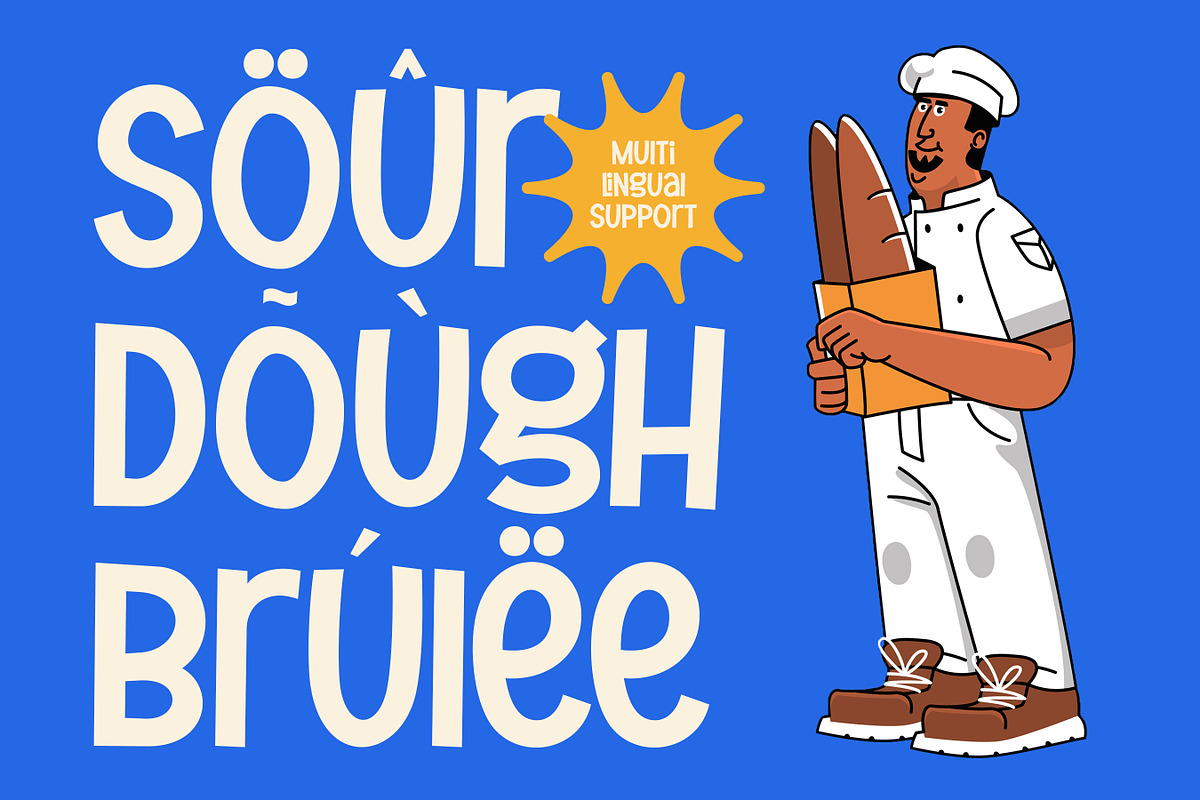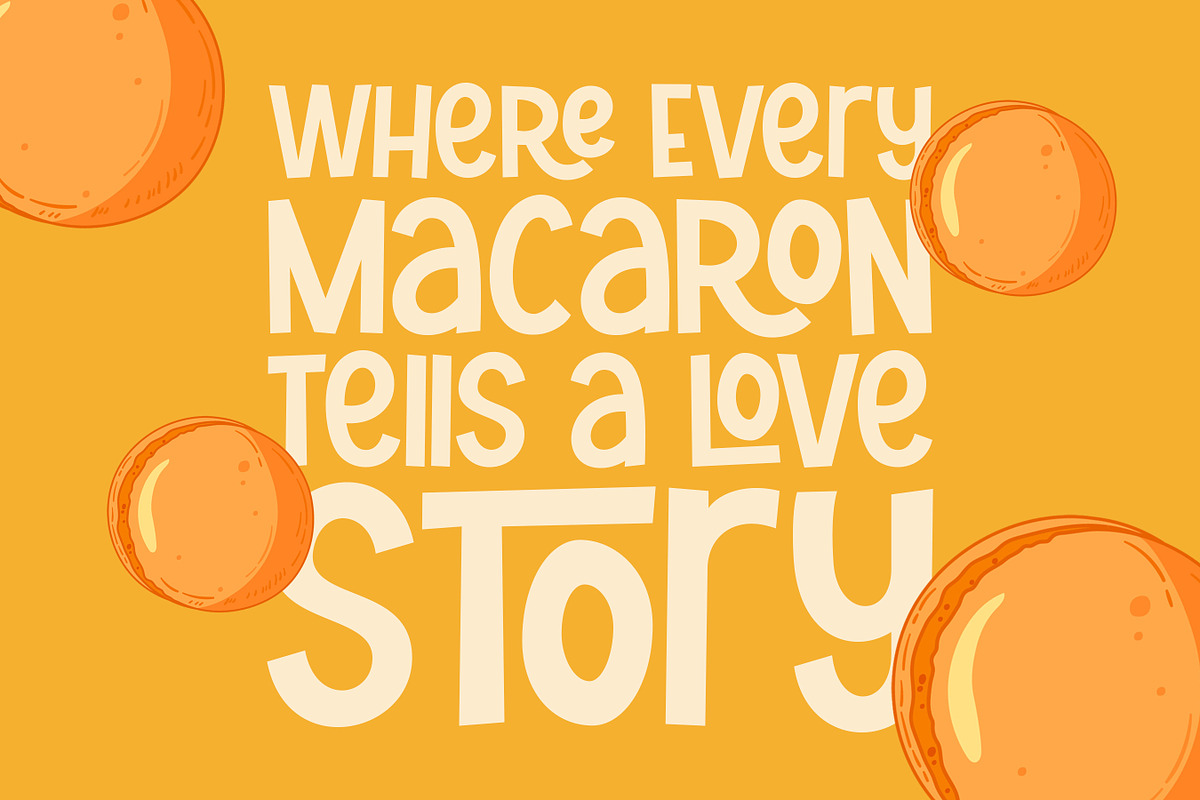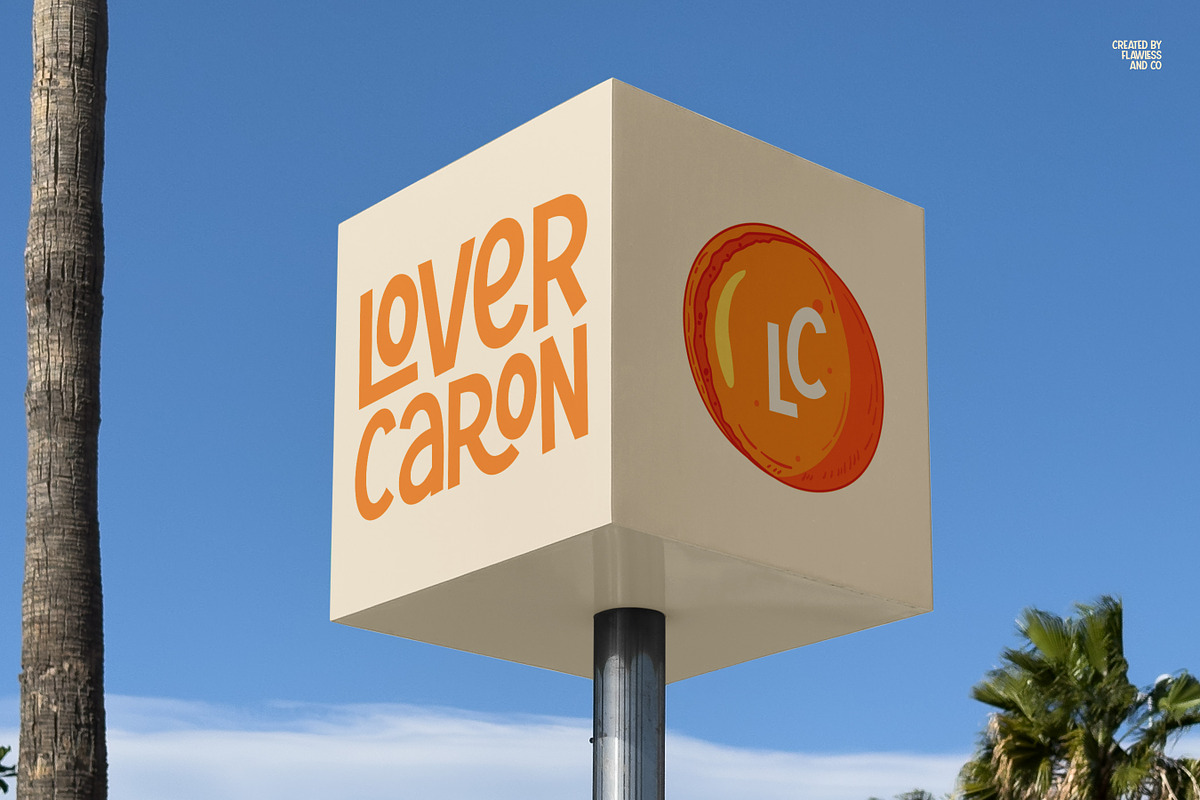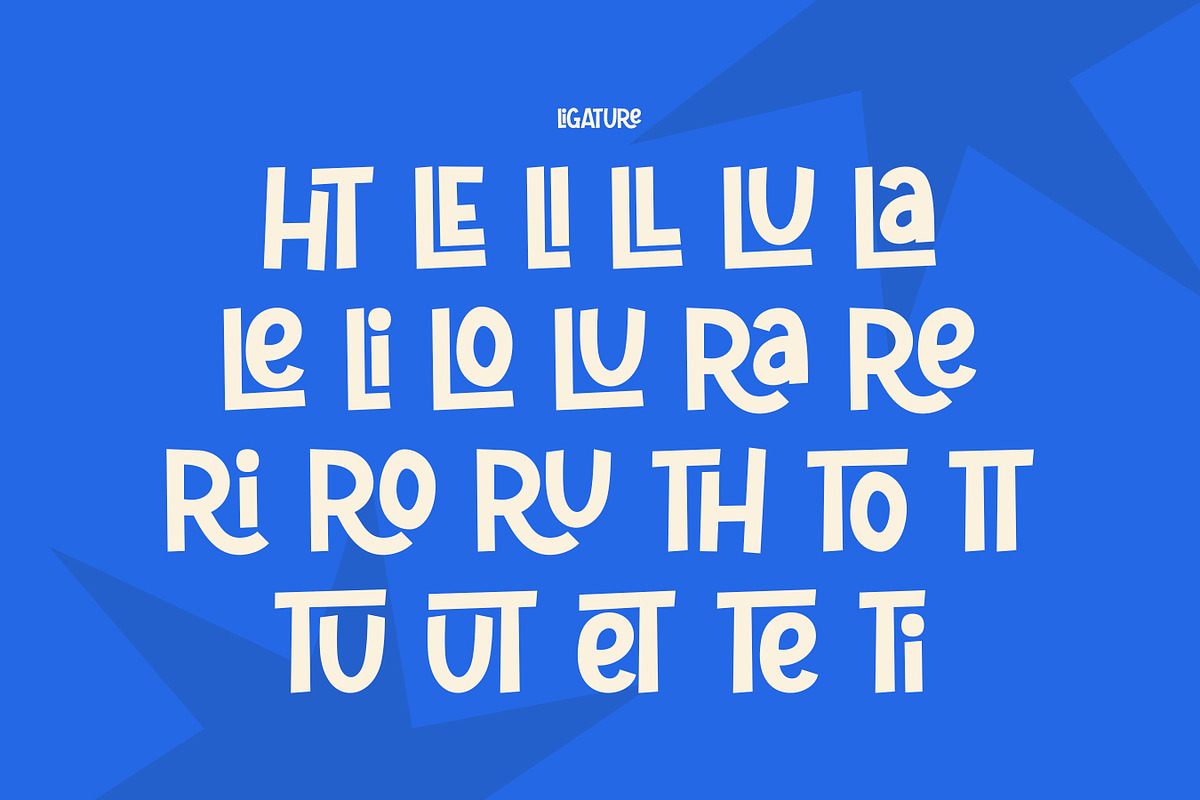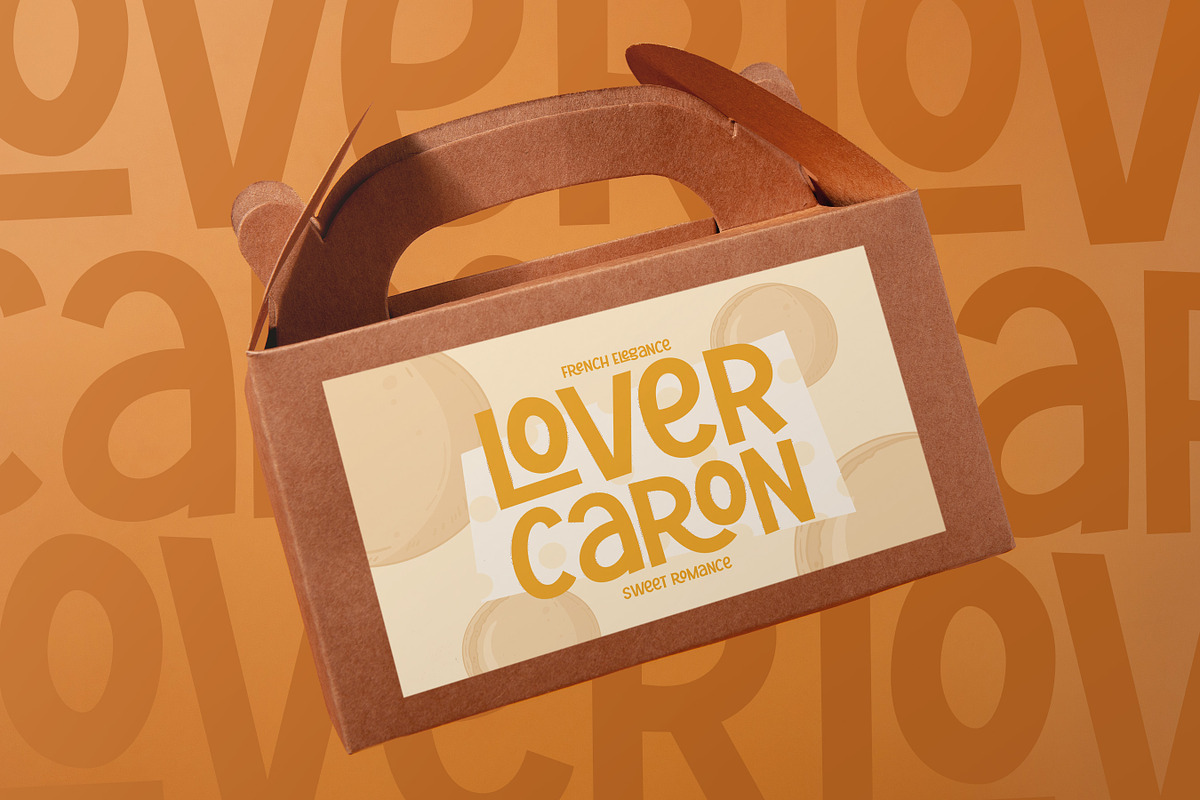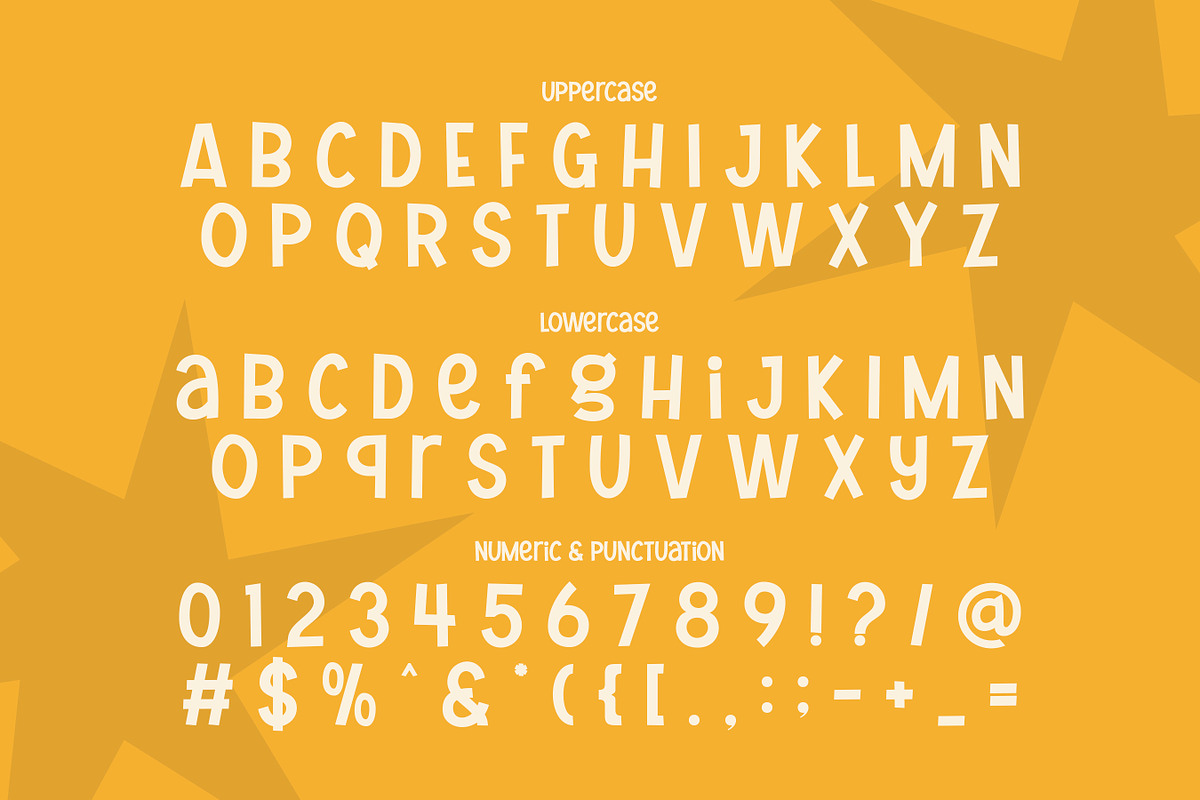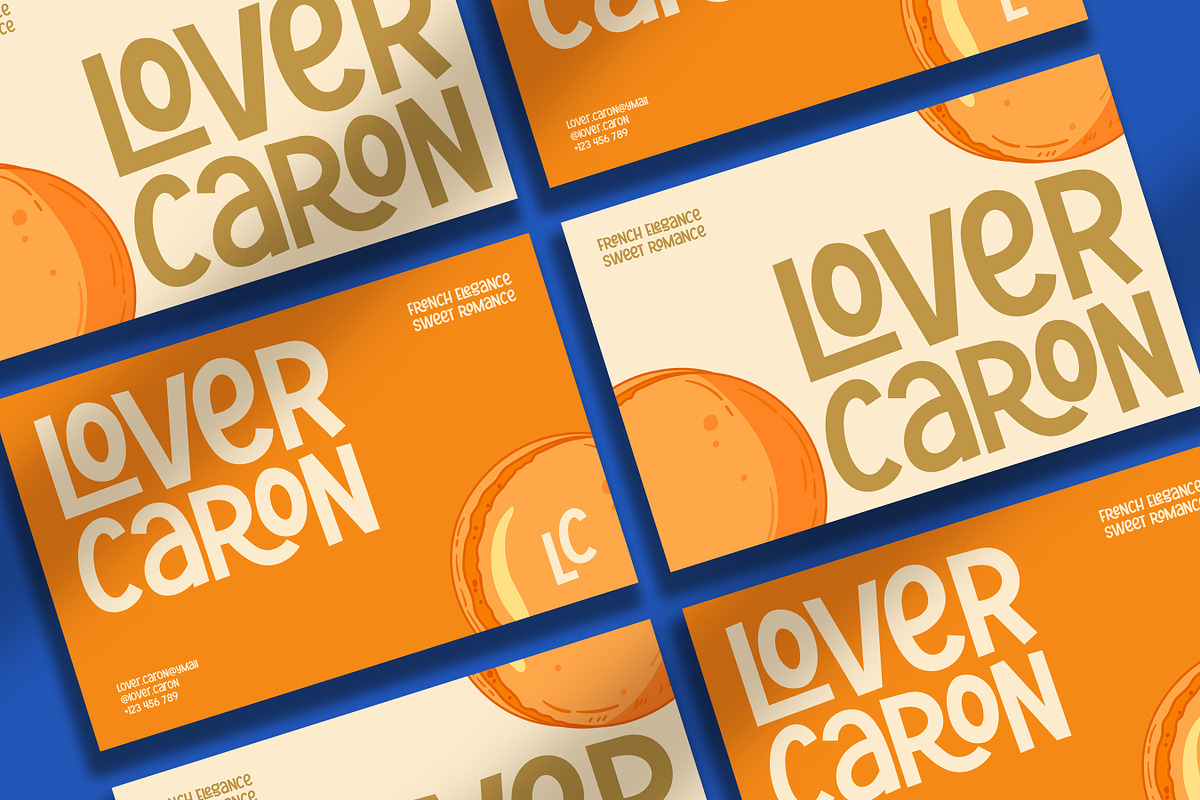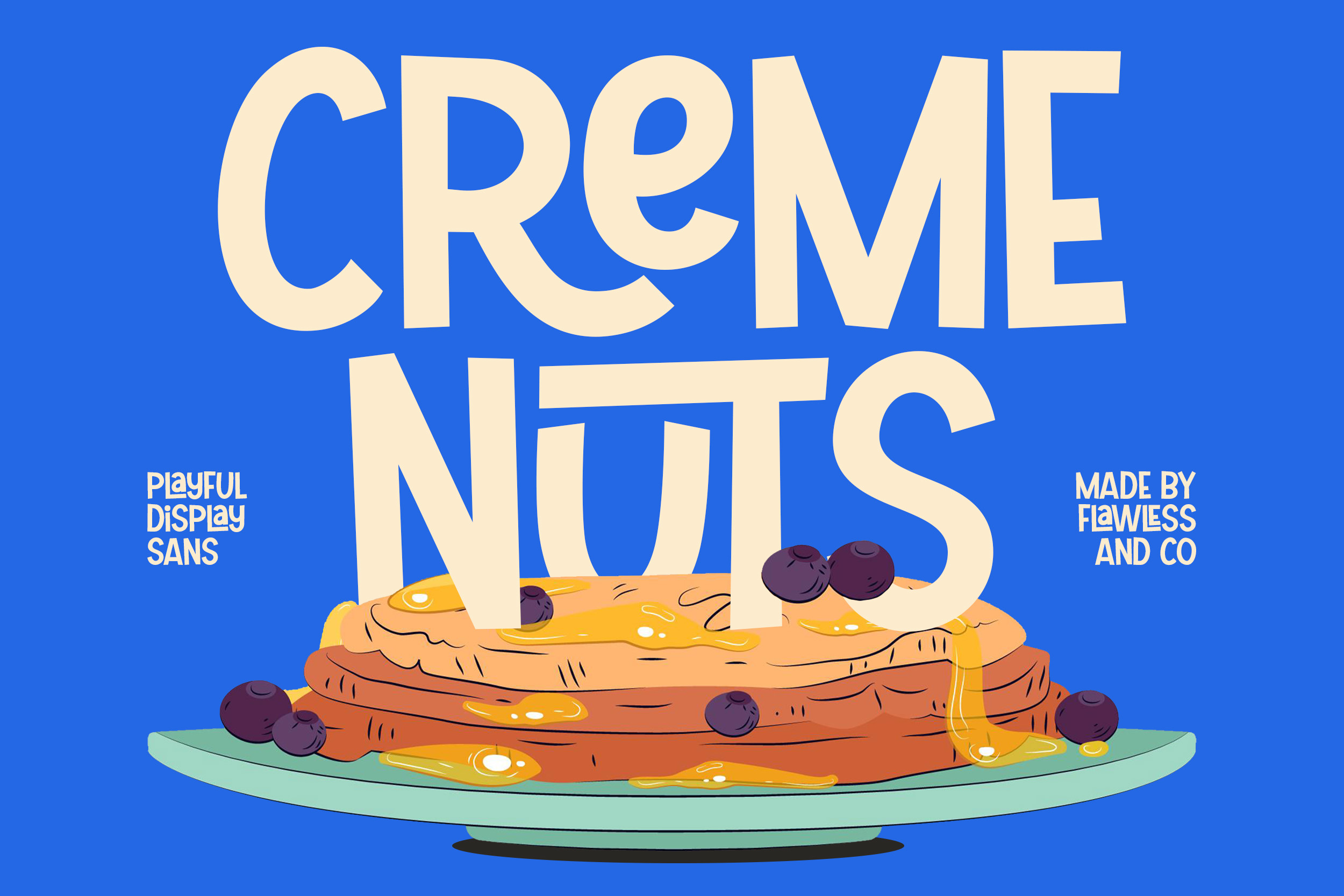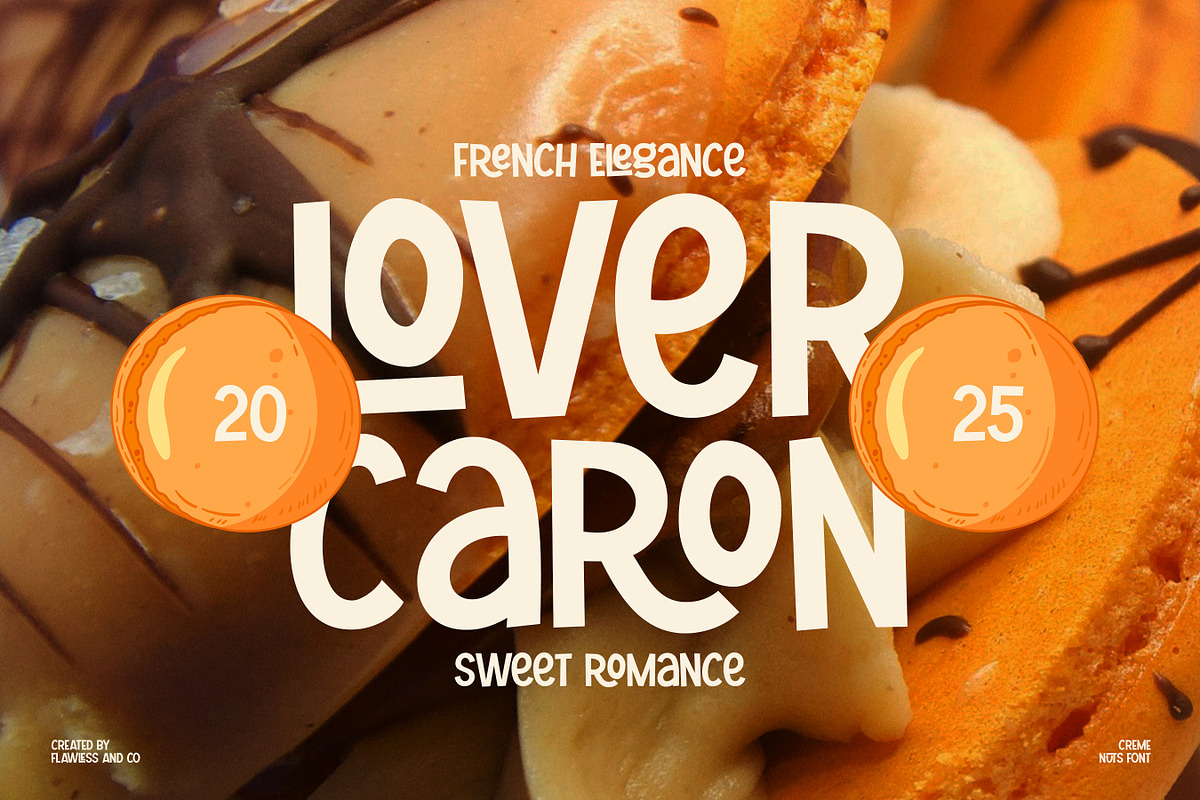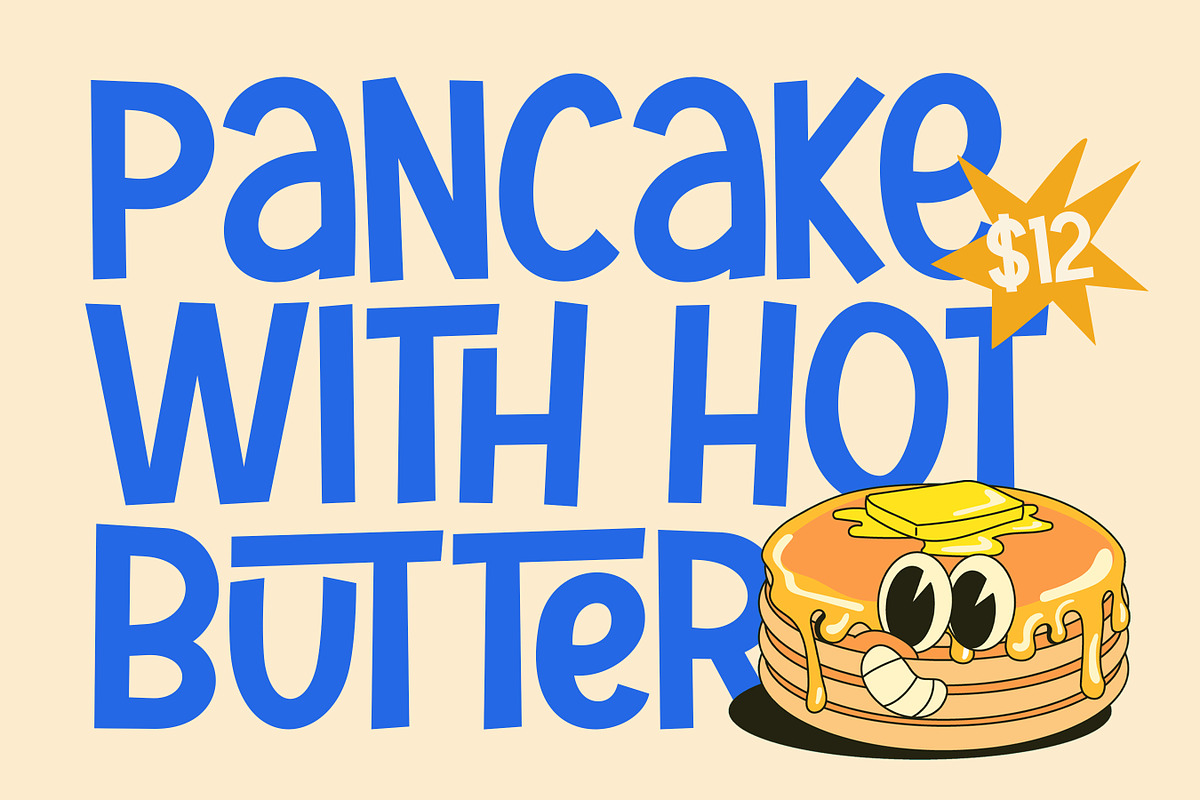
Creme Nuts - Display Sans Serif Font
Creme Nuts is a playful display sans serif font designed to bring fun, warmth, and personality into your designs. Featuring bold shapes, rounded forms, and cheerful character, this font delivers a friendly and eye-catching look that instantly grabs attention.
Who Should Use Creme Nuts?
Creme Nuts is perfect for designers, illustrators, and creative brands who want to express fun, friendliness, and creativity. It’s an excellent choice for projects that aim to feel lighthearted, engaging, and visually memorable.
A Must-Have Font for Brand and Logo Creators and Designers
This font is a must-have for brand and logo creators who want to build strong visual identities with a playful touch. Creme Nuts helps brands feel more approachable and lively while maintaining clarity and readability.
Why Choose Creme Nuts for Brand and Logo Projects?
Creme Nuts stands out with its bold playful shapes and friendly character, making logos and branding feel fresh and energetic. Its clean sans serif structure ensures your designs remain legible while still having a unique personality that sets them apart.
Suitable for:
- Branding and logo design
- Food and beverage packaging
- Kids and family-oriented projects
- Posters and playful headlines
- Social media graphics
- Stickers and merchandise
- Advertising and promotions
- Creative illustrations